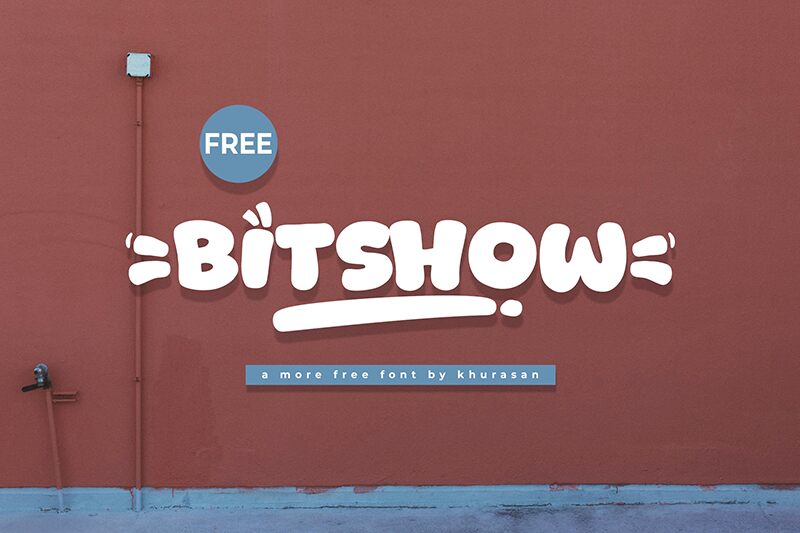
Bitshow
Bitshow font by Khurasan is a bold, cartoon-styled display font with rounded forms for a cute aesthetic. The retro-inspired typeface will work wonders in both minimalist and modern contexts where it’ll make a high-impact impression. It consists largely of capital letters with minimal equality between different character shapes.